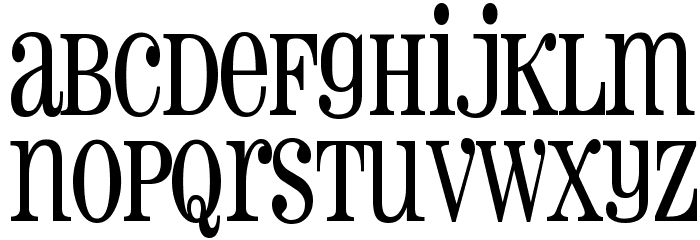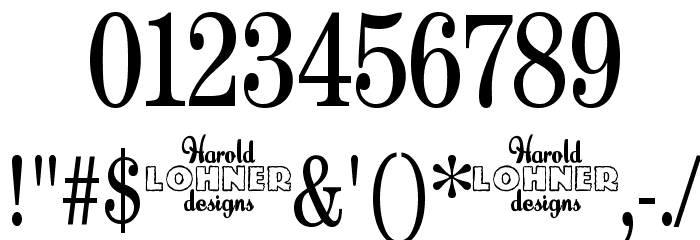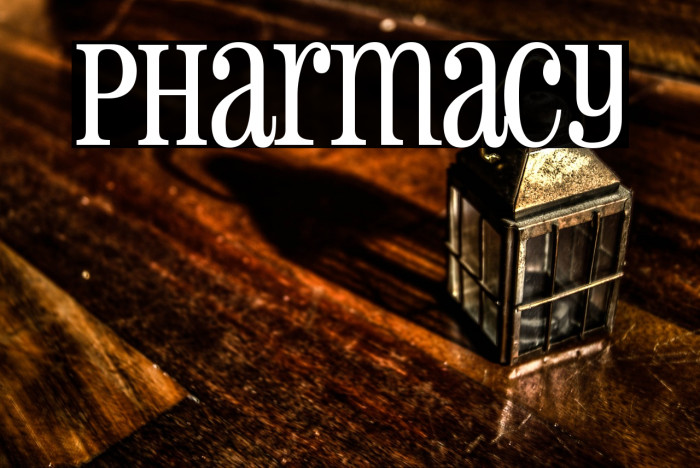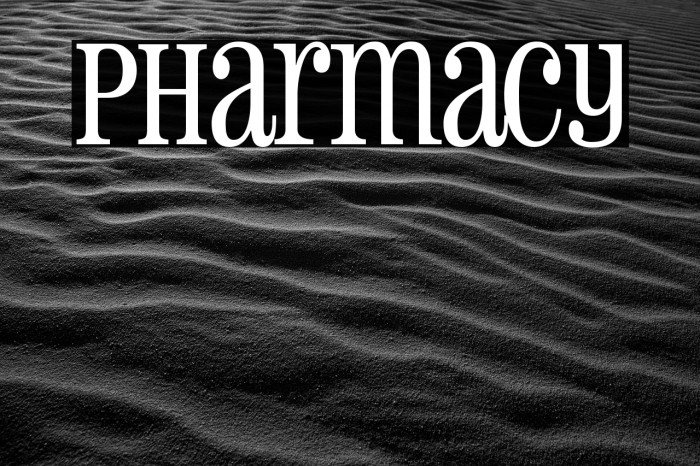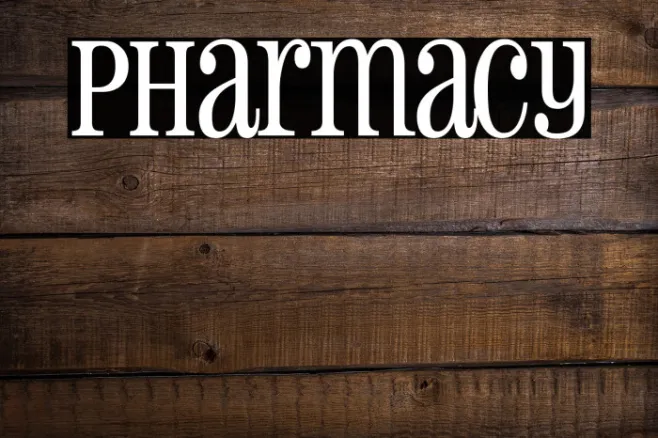
Pharmacy Font
This font features a distinctive and playful style with a touch of vintage charm. The characters are bold and have a unique flair, with exaggerated serifs and a slightly condensed form. The uppercase letters are tall and commanding, while the lowercase letters maintain a consistent style with rounded edges and whimsical curves. Numbers are clear and easy to read, making them suitable for various applications. Special characters are creatively designed, adding to the font's overall appeal. The font's style is both decorative and functional, making it versatile for different design projects.
A bold, vintage-inspired font with playful serifs and a decorative style.
- Proposed Projects: Ideal for branding, packaging, posters, and any design project that requires a touch of vintage elegance and playfulness.
- Overall Style: Vintage, Decorative